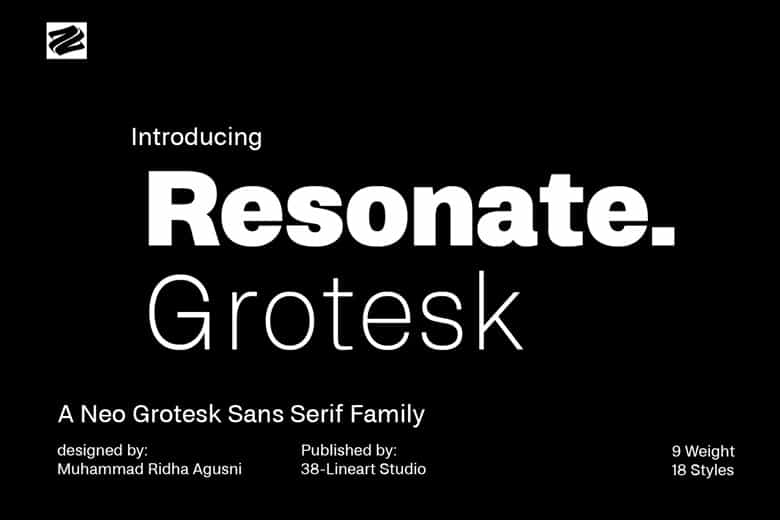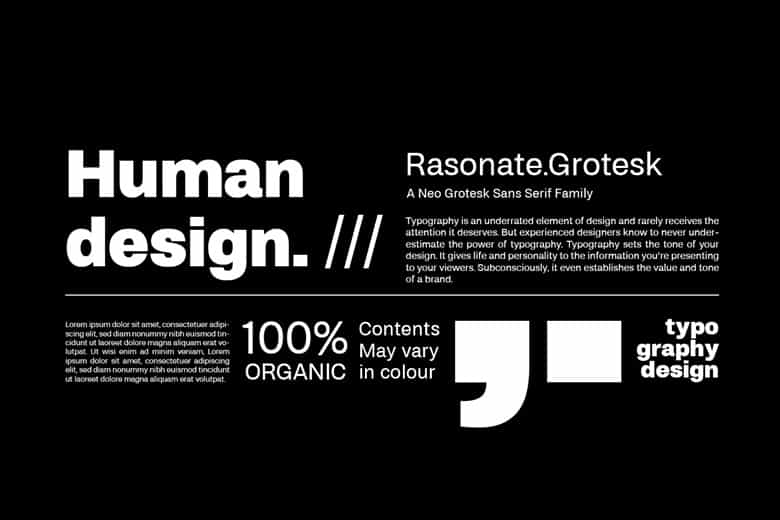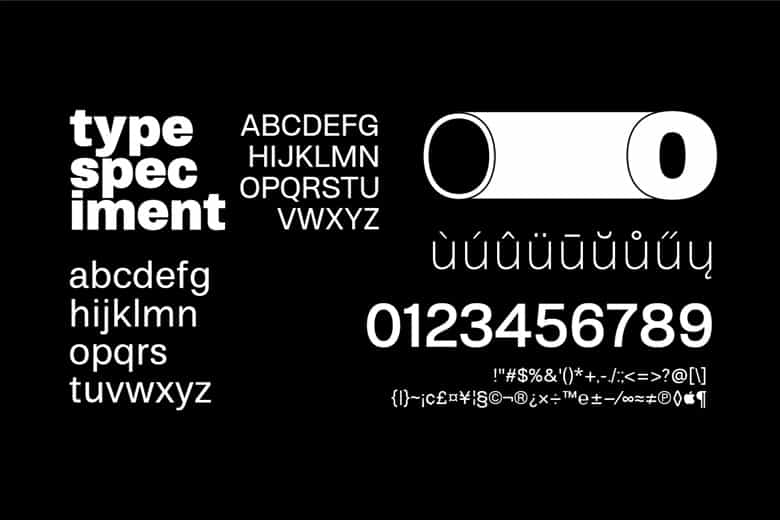
Resonate is a highly adaptable neo-grotesk sans serif font designed for today’s world but with the aesthetics of tradition, suitable for both print and digital applications in editorial, corporate, and advertising design. Carefully crafted and thought out, Resonate provides an extensive set of weights and styles, which allow for the accurate delivery of diverse emotions and messages.